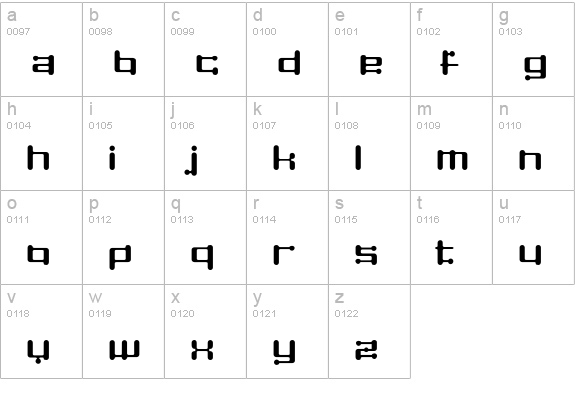
Epitaph Font Details
Epitaph font is a captivating and versatile typeface that blends traditional elegance with a modern twist. Its sleek lines and sophisticated design make it perfect for a wide range of design projects, from branding to editorial layouts. The timeless appeal of Epitaph font exudes a sense of refinement and class that will elevate any design it is used in. What sets Epitaph font apart is not only its stunning aesthetics but also its accessibility. This premium font is available for free download at FontsMarket.com, making it an invaluable resource for designers and creatives looking to add a touch of sophistication to their projects without breaking the bank. With its clean and legible letterforms, Epitaph font is a must-have addition to any designer's toolkit. Elevate your designs with this exquisite font today, and unlock the endless possibilities it offers for your creative endeavors.